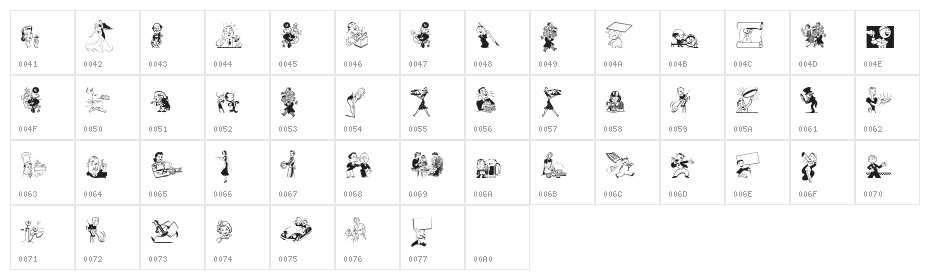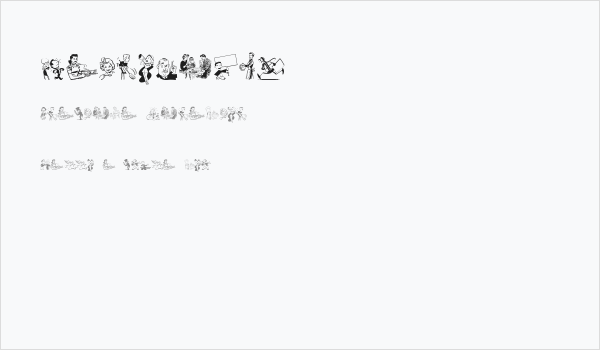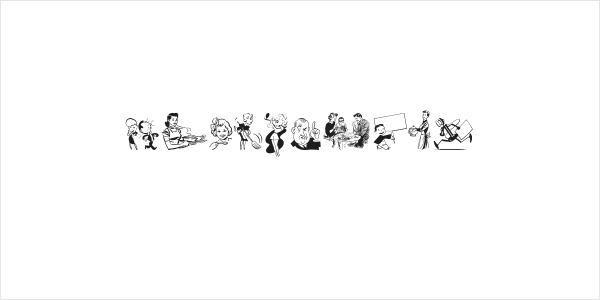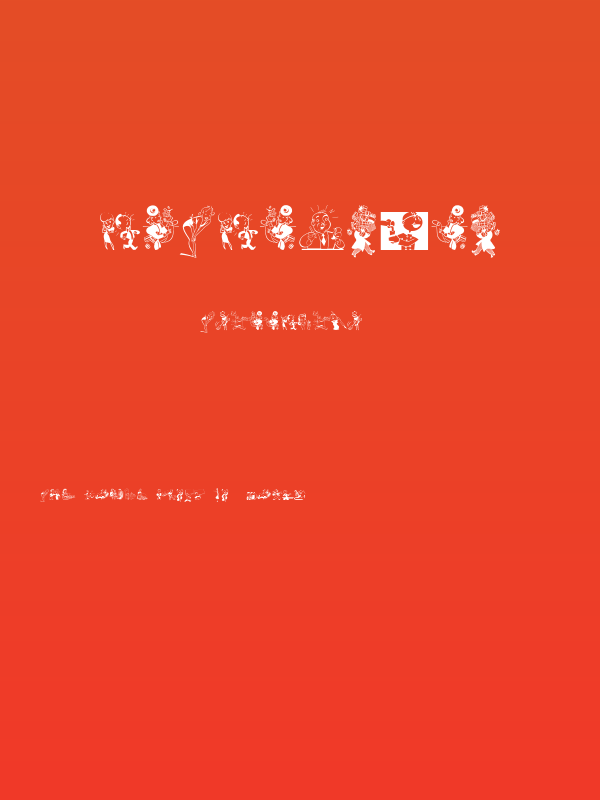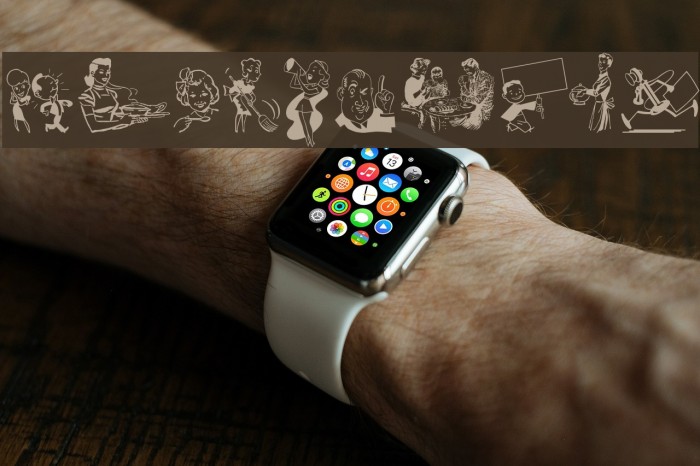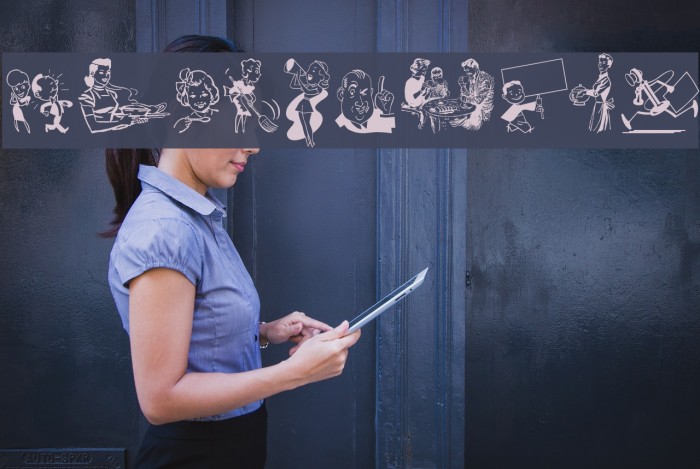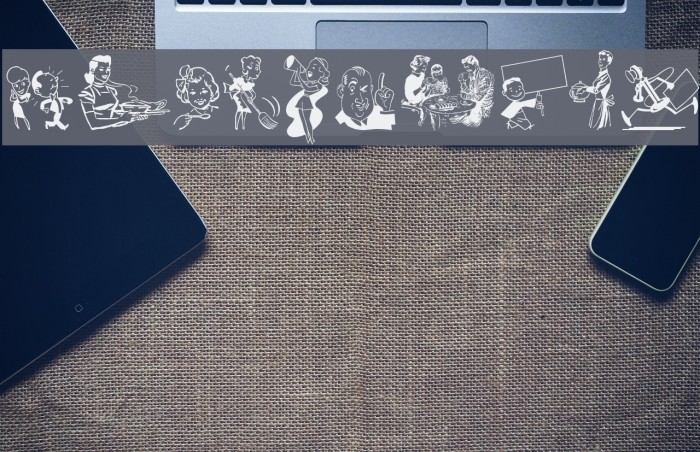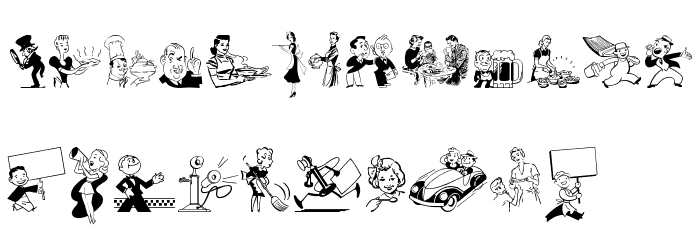
Retrodings Font
Retrodings Description
This collection features a series of retro-style illustrations that capture the essence of mid-20th century design. Each character and scene is depicted with bold lines and a playful, nostalgic flair, reminiscent of vintage advertisements and comic strips. The illustrations include a variety of scenarios, from domestic life to leisure activities, all rendered in a charming and whimsical manner. The style is consistent throughout, with a focus on exaggerated expressions and dynamic poses, making it ideal for projects that aim to evoke a sense of nostalgia and fun.
| Use Case | Logos, Posters, Merchandise |
| Proposed Projects | Ideal for vintage-themed posters, retro advertising campaigns, greeting cards, and nostalgic merchandise. |